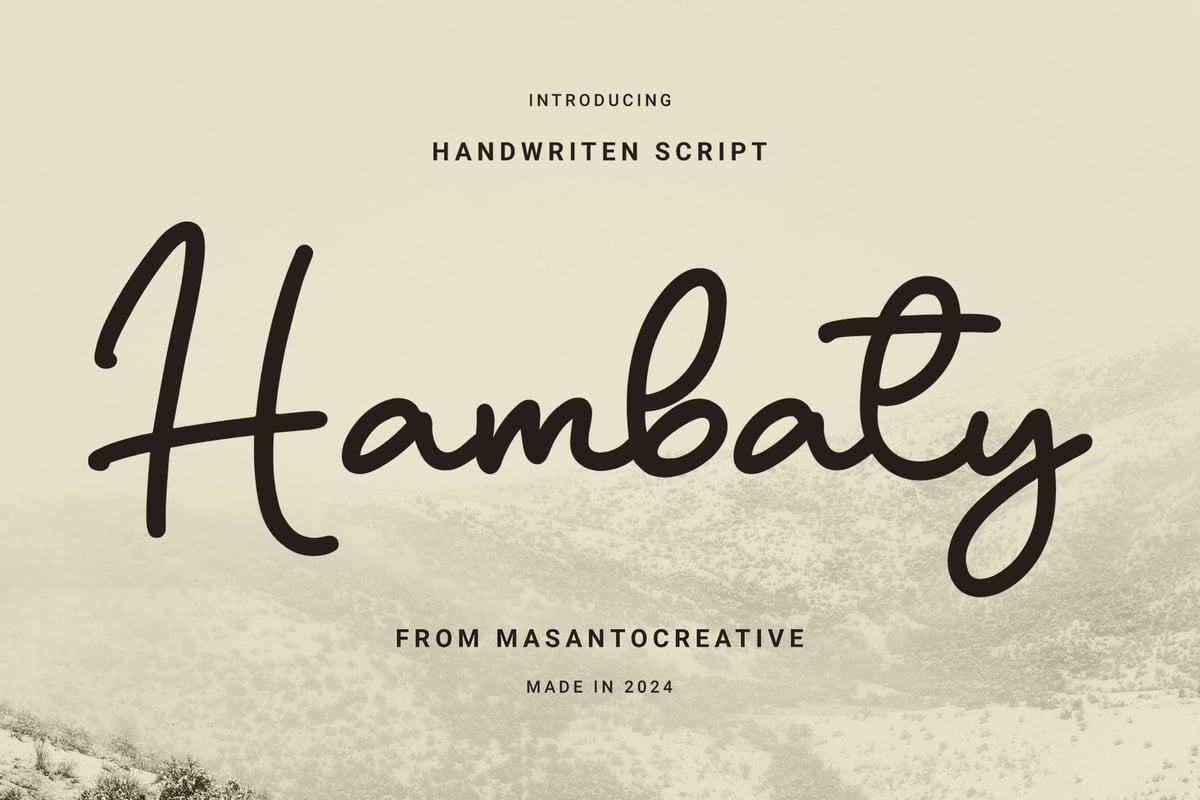
Hambaty – Handwritten Script Typeface
Hambaty brings the warmth of natural handwriting to your designs with smooth strokes and effortless flow.
Hambaty is a handwritten script typeface crafted to mimic the look and feel of personal, casual handwriting. Its consistent rhythm and fluid letterforms make it a versatile choice for a wide range of creative projects — from branding and packaging to social media graphics, quotes, and personal stationery.
Whether you're designing a heartfelt greeting card, a boutique logo, or an eye-catching Instagram post, Hambaty adds a genuine, human touch that resonates with audiences.